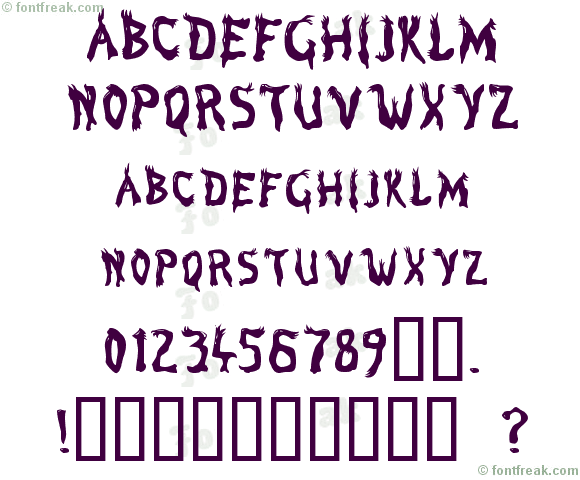
Marsh Gas
About Marsh Gas
The Marsh Gas font by Levi is a unique display typeface that captures a whimsical yet slightly eerie aesthetic, making it perfect for a variety of creative projects. Designed in 2000, this freeware font features a distinct, hand-drawn style that adds character and intrigue to any design. The strokes are uneven with a medium weight, creating an organic feel that captures the essence of its name. The irregular spacing between letters enhances its playful nature, while the decorative elements, such as jagged edges and unexpected curves, evoke a sense of fantasy.
The Marsh Gas font shines in specific use cases where its quirky style can be fully appreciated. It is ideal for designing Halloween-themed invitations or party flyers, where a touch of spookiness is desired. Additionally, the font works well for artistic movie posters that aim to convey a whimsical or adventurous narrative. Restaurant menus featuring quirky or themed dining experiences can also benefit from this font, as it draws attention and adds charm. Small business owners looking to create unique branding materials will find it a valuable asset, particularly for businesses related to art, crafts, or the outdoors.
The target audience for this font includes graphic designers, content creators, and small business owners who are searching for a distinctive typeface to elevate their projects. The Marsh Gas font free download provides an accessible option for anyone looking to add a touch of creativity to their work. This font stands out due to its ability to evoke a range of emotions while maintaining a playful charm, making it an excellent choice for anyone aiming to create memorable and engaging designs. Its unique visual characteristics ensure that it will leave a lasting impression on viewers.